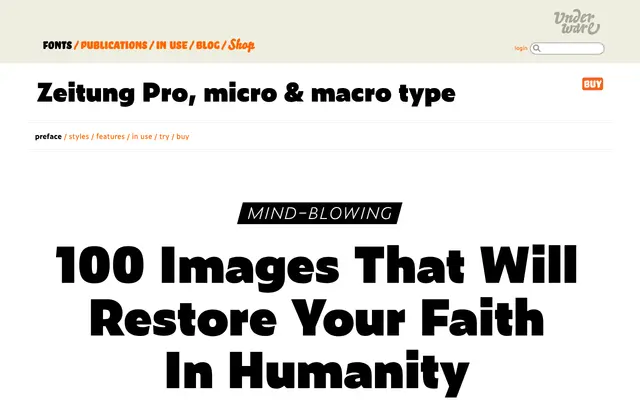
Zeitung
A grotesque sans from Underware whose name — German for 'newspaper' — signals its editorial intentions.
Zeitung is a sans-serif from Dutch foundry Underware designed with editorial and newspaper contexts in mind. The name, German for 'newspaper', gives a clear signal of its intended use. Little additional detail was available from the scraped page content, but Underware's output generally sits at a high level of craft.
Zeitung is a newspaper-oriented sans-serif from Underware, sitting within the grotesque tradition given its editorial focus and the name itself meaning 'newspaper' in German.